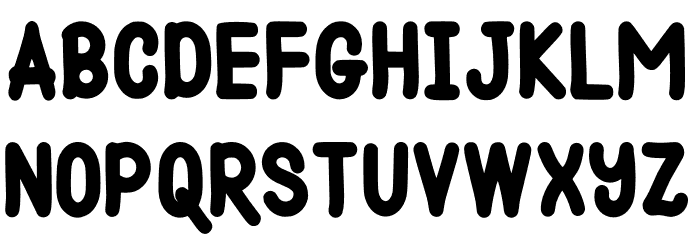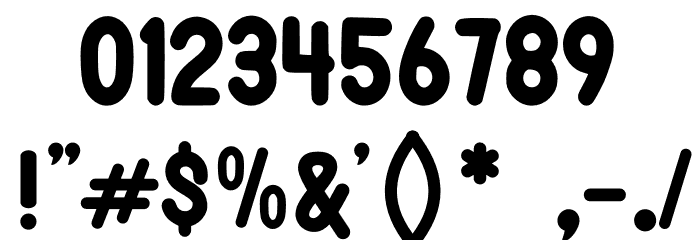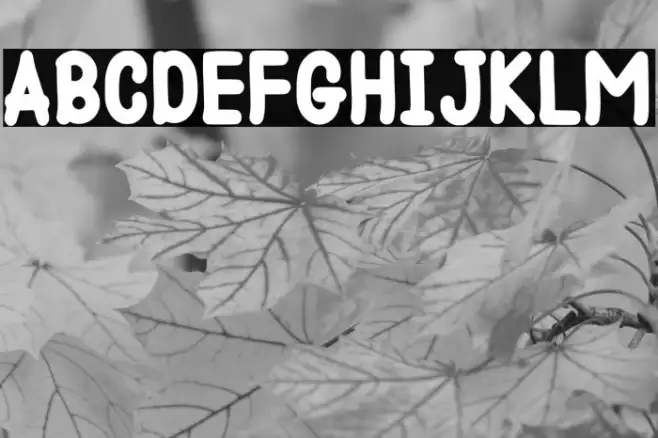
Dutch Croquettes Font
This font features a bold and playful design with rounded edges and a slightly irregular form, giving it a hand-drawn appearance. The characters are thick and uniform, providing a strong visual impact. The uppercase and lowercase letters maintain a consistent style, with a whimsical touch that adds personality. The numbers and special characters follow the same design principles, ensuring cohesion across all elements. The overall look is friendly and approachable, making it suitable for projects that require a fun and engaging typeface.
A bold, playful font with rounded, hand-drawn characters.
- Font: Dutch Croquettes
- Proposed Projects: Ideal for children's books, playful branding, posters, and casual invitations.
- Overall Style: Playful